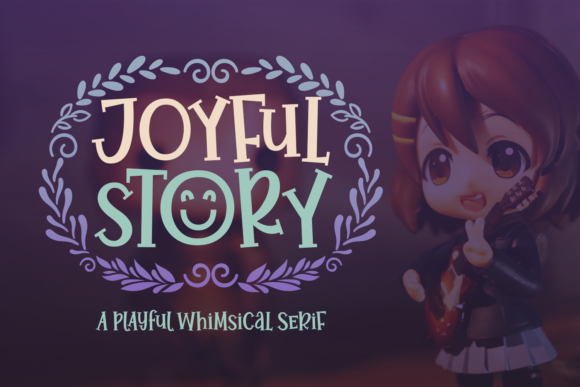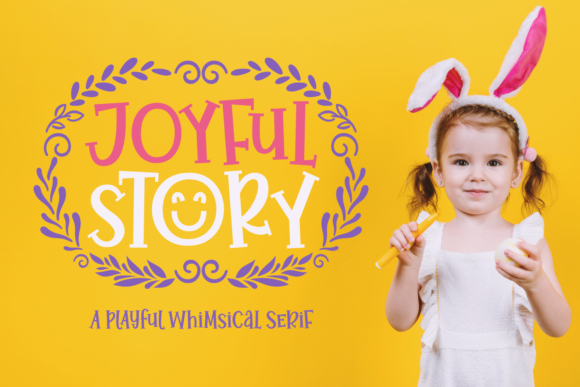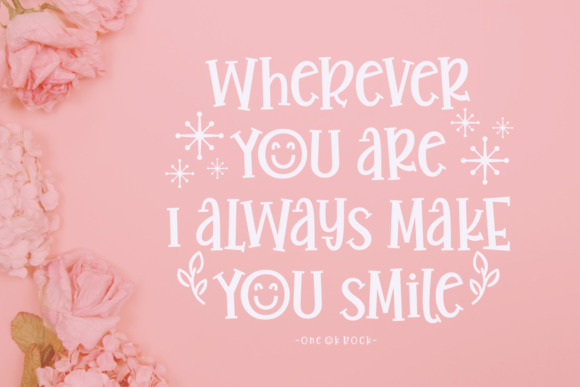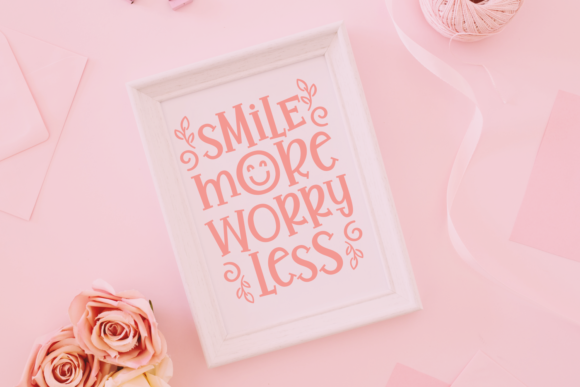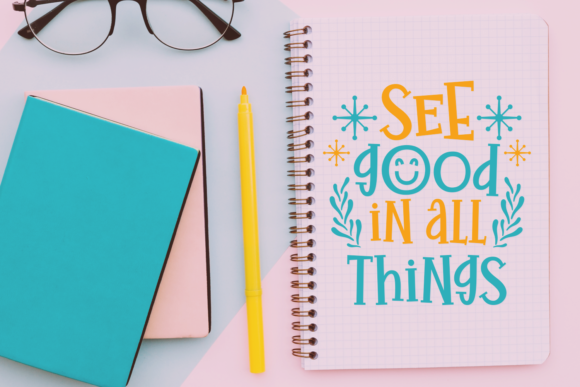
HomeScript FontsJoyful Story Font Script Fonts Joyful Story Font FacebookTwitterPinterestWhatsApp Joyful Story Font Poster 2 Joyful Story Font Poster 3 Joyful Story Font Poster 4 Joyful Story Font Poster 5 About Joyful Story Font Joyful Story is an incredibly playful and whimsical font that will turn any design project into a stand-out! DOWNLOAD NOW People also explored Wedding Monograms Font Bumblle Font Kitten Club Font Aspire Narrow Small Caps Yulinda Font Orange Juice Font ZP Harmonica Font Saturday Notes Font Busling Script 144 0 TagsJoyful Story Font Previous articleOutlander FontNext articleStylish Font LEAVE A REPLY Cancel reply Comment: Please enter your comment! Name:* Please enter your name here Email:* You have entered an incorrect email address! Please enter your email address here Website: Save my name, email, and website in this browser for the next time I comment. Personal Use Free Letter Hanger Personal Use Free Read more about this font Rasiday Personal Use Free Read more about this font Capellen Personal Use Free Read more about this font Bakk Trieng Personal Use Free Read more about this font BLOG The 10 Best Handwriting Fonts to Add Personality to Your Designs 10 of the Best Handwriting Fonts for Adding Personality to Your Designs There will undoubtedly be no other better choice than handwriting fonts to give... Best Fonts for YouTube Videos: Make Your Thumbnails Stand Out Top 7 Google Fonts Alternatives for Faster and Privacy-Friendly Web Design (2025) Exploring Font Trends